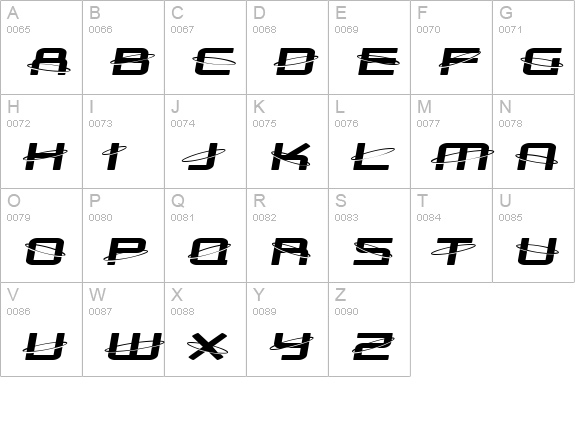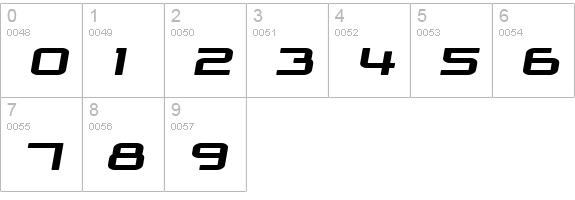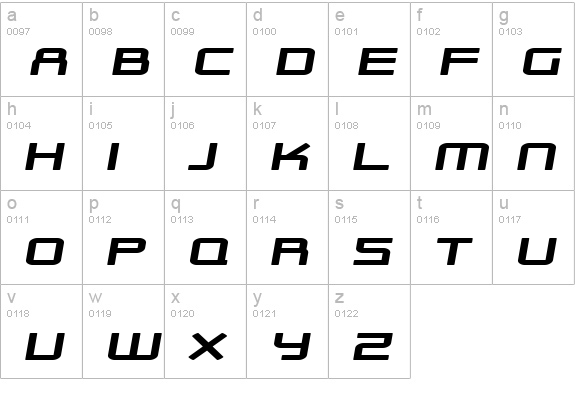
SF Outer Limits Extended Font Details
SF Outer Limits Extended is a distinctive, extended-width variant in the SF typeface family \xE2\x80\x94 well suited to design and typography projects.
Introducing SF Outer Limits Extended font - a captivating typeface that pushes the boundaries of futuristic design. With its elongated letterforms and sleek, modern aesthetics, this font is perfect for projects requiring a touch of science fiction and outer space charm. SF Outer Limits Extended font boasts an impressive versatility, making it suitable for a wide range of creative endeavors. Whether you're designing a poster for a sci-fi movie, crafting a captivating book cover, or creating eye-catching branding materials, this font will add a sense of intrigue and otherworldly allure to your work. Featuring a carefully crafted balance between sharp edges and smooth curves, SF Outer Limits Extended font exudes an air of sophistication and technological advancement. Its unique letterforms capture the essence of the unknown, making it an ideal choice for projects seeking to convey a sense of exploration and discovery. But what makes SF Outer Limits Extended font truly stand out is its availability as a free download. That's right, you can access this remarkable font at absolutely no cost through FontsMarket.com. Whether you're a professional designer or a passionate hobbyist, this free offering allows you to harness the power of SF Outer Limits Extended font without breaking the bank. So, why wait? Unleash your creativity and dive into the captivating world of SF Outer Limits Extended font. With its futuristic charm and availability as a free download at FontsMarket.com, this font is your key to unlocking a universe of endless design possibilities. Embrace the unknown and let SF Outer Limits Extended font guide you on a journey to the outer reaches of imagination.